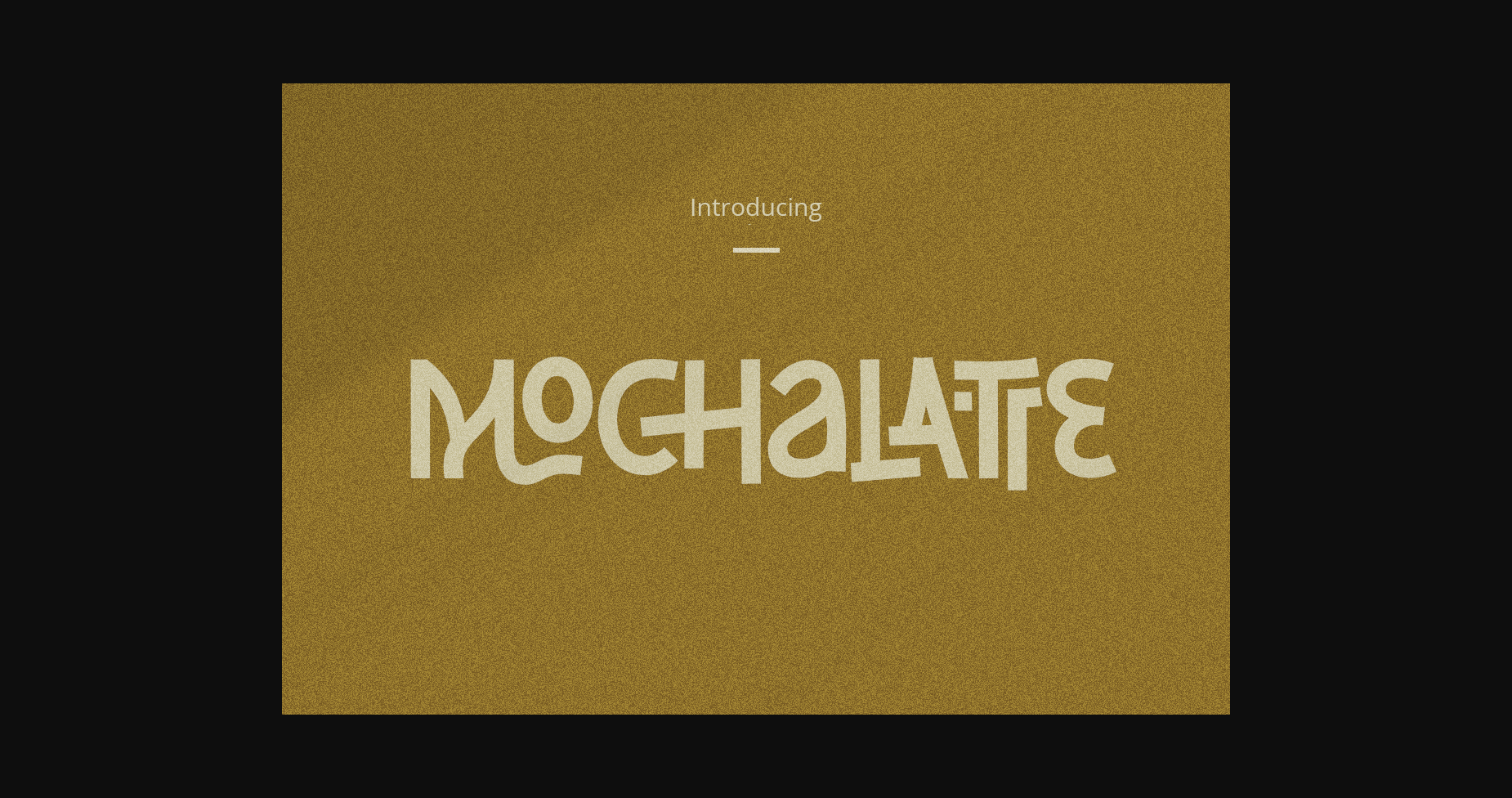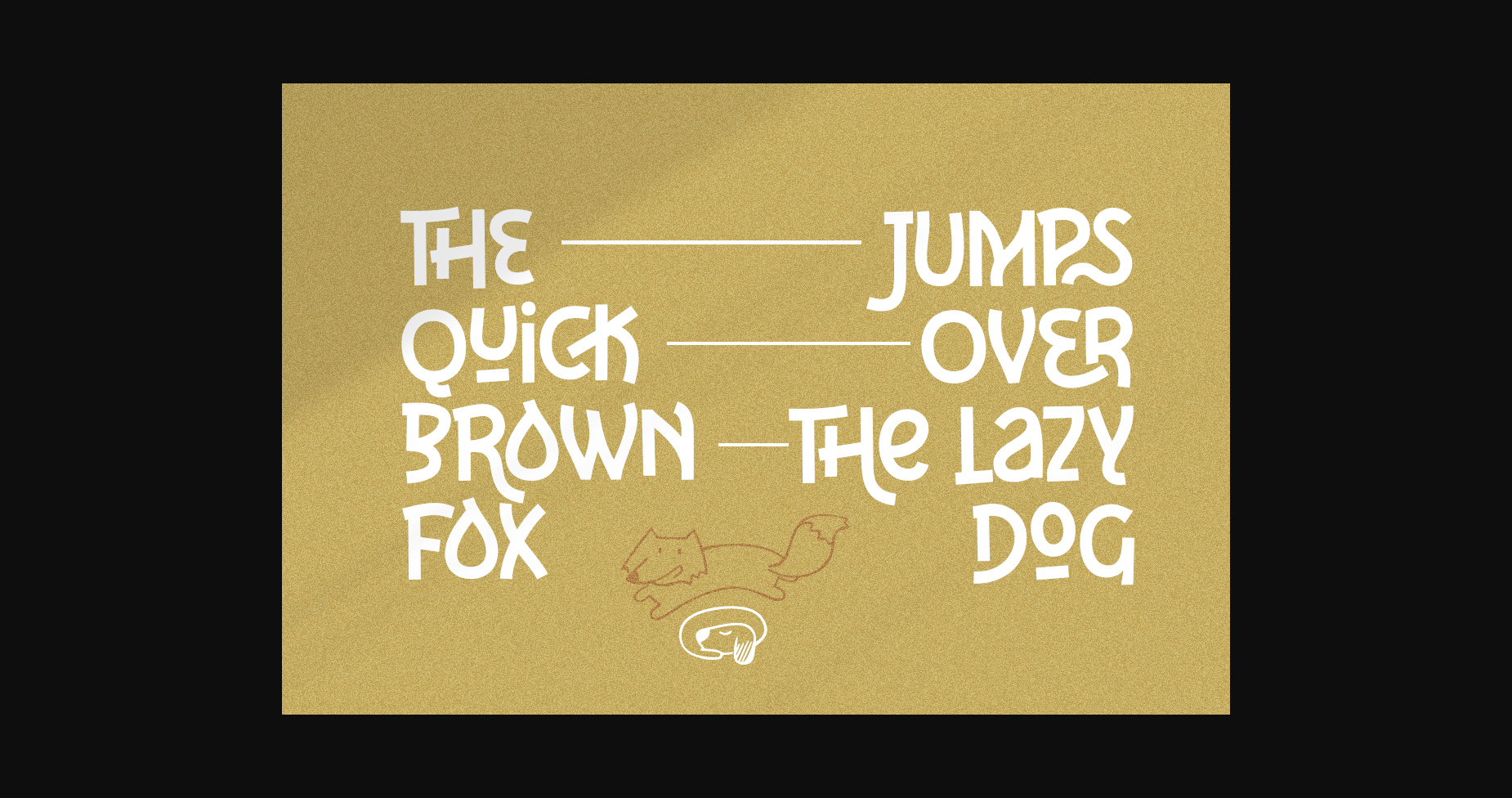
About Mochalatte Font
Mochalatte is an attractive and modern semi-bold, elegant decorative font with a fun, dashing style look. This font is equipped with extra ligatures and alternates, that will make your creative design projects look impressive and stunning. Mochalatte is perfect for logotypes, posters, t-shirt designs, packaging brands, or quotes, magazine headers, etc.